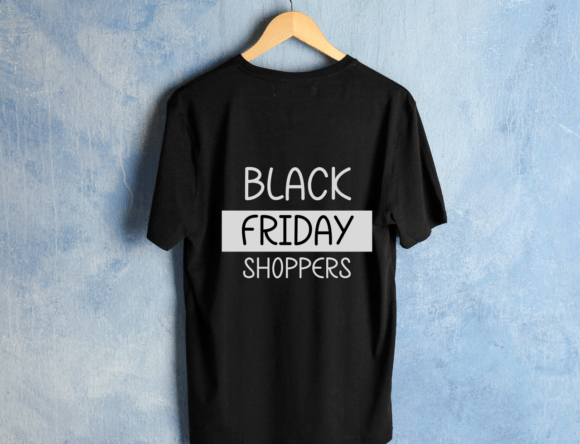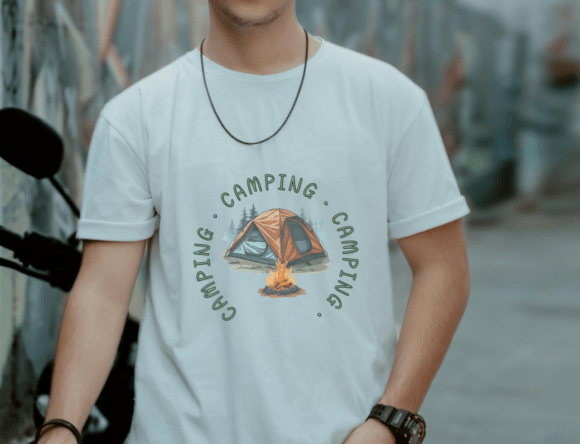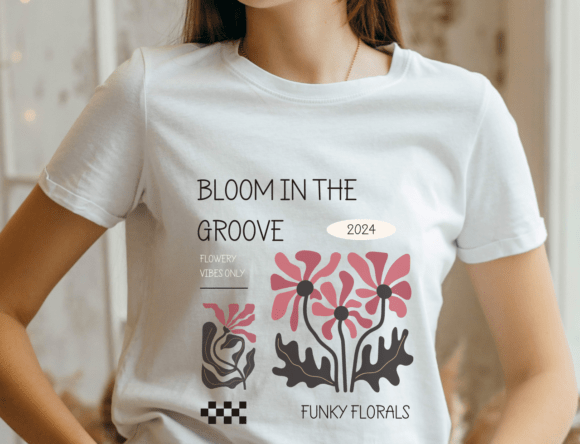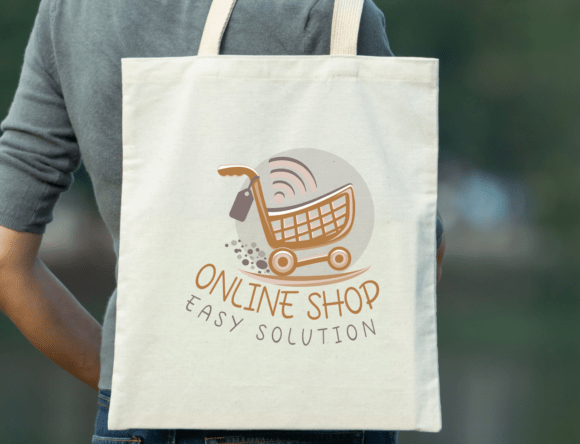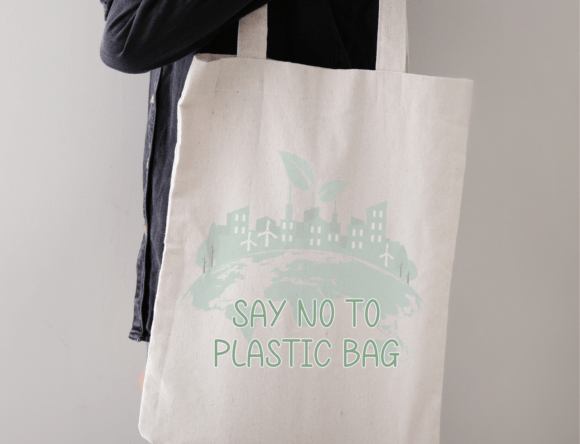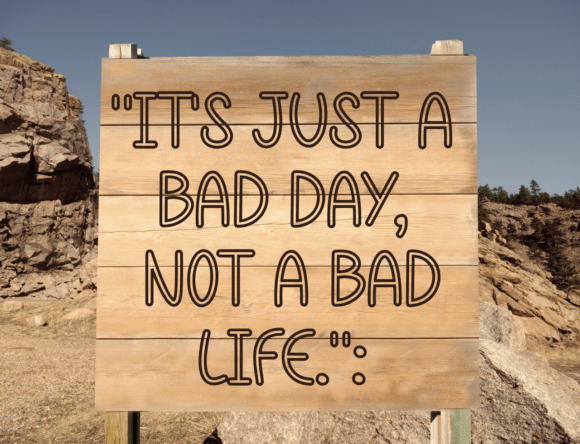
Introduction to Nithire Font
Nithire typeface is a game-changer in the font world.
With its unique identity, Nithire gets to be the magic ingredient that elevates your design work to the next level Whether it graces a letter or lends elegance to your greeting cards, wedding invites, planners, or handwritten notes, Nithire offers an inimitable touch.
Key Features of Nithire Font
Why Choose Nithire Font?
Nithire Font offers exceptional quality and versatility, making it a valuable addition to your design toolkit. Whether you’re creating for personal projects or commercial use, Nithire Font delivers professional results.